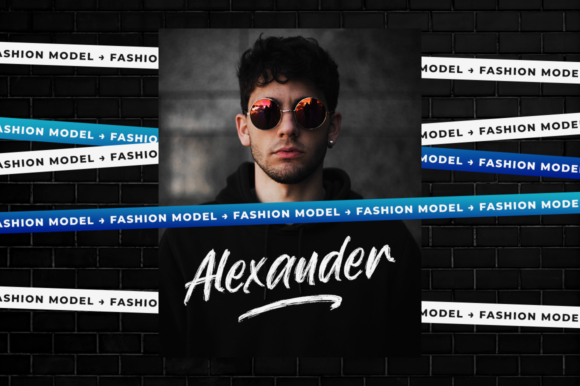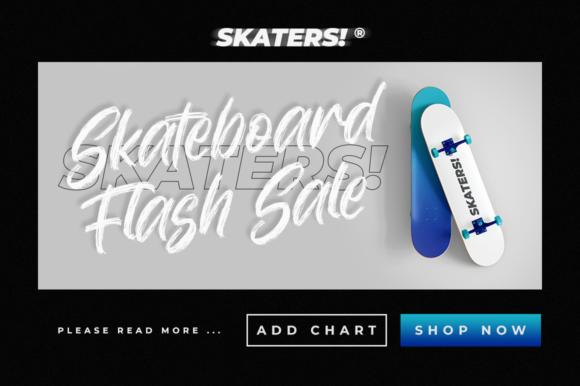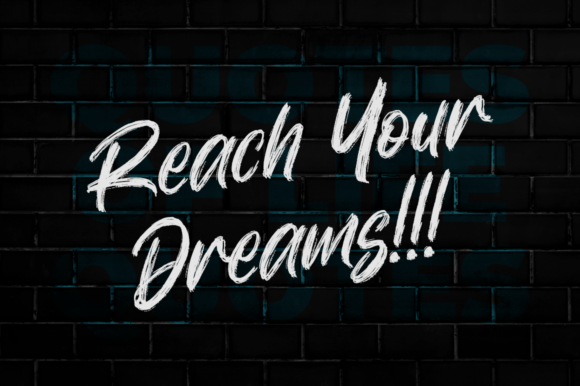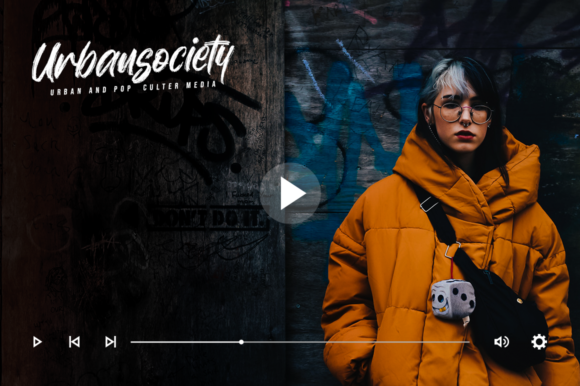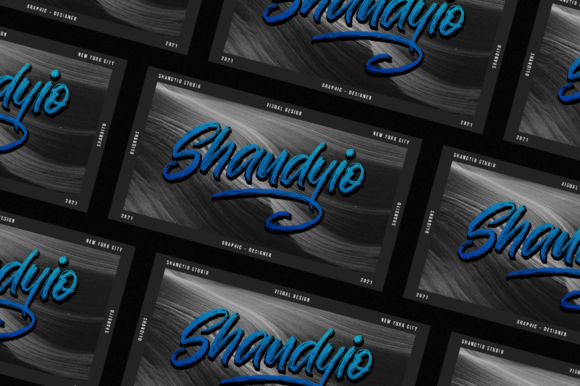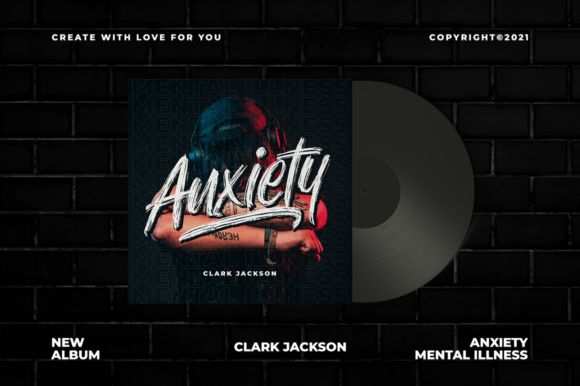
I still remember the frustration of working on a project, hours spent on designing and refining every detail, only to be stuck on one thing: finding the perfect font. It was for a client’s boutique brand, and I needed something that exuded confidence, style, and versatility. The font had to be chic, trendy, and convey a sense of high-end quality. I scoured through font libraries, tried out numerous options, but nothing seemed to fit the bill. That was until I stumbled upon Autosmash Font.
Introducing Autosmash Font
Autosmash is a stunning script font that checks all the boxes: confidence, versatility, and style. Its sleek design, complete with stylish alternates and ligatures, makes it an excellent choice for any project. Whether you’re a designer, crafter, or creative hobbyist, Autosmash Font is sure to elevate your work.
- ✨ Stylish alternates and ligatures that add a touch of sophistication
- 💫 Works beautifully for both digital and print projects
- 🎨 Excellent for branding, packaging, and advertising designs
While Autosmash Font is an excellent choice, there are a few things to keep in mind:
- 🤔 Limited use of uppercase letters, which might not be ideal for certain projects
- ⚠️ Some users might find the font a bit too condensed for their taste
The Designer Inspiration Behind Autosmash Font
The story behind Autosmash Font begins with a designer who sought to create a font that embodied confidence and style. Inspired by the world of high-end fashion and luxury brands, they crafted a font that would convey a sense of sophistication and versatility. Through careful attention to detail and a passion for typography, Autosmash Font was born.
Q: What type of projects is Autosmash Font best suited for?
A: Autosmash Font is an excellent choice for branding, packaging, advertising, and digital designs that require a touch of style and sophistication.
Q: Is Autosmash Font suitable for body text?
A: While Autosmash Font is highly legible, it’s primarily designed for headlines and titles. For body text, you may want to consider a more traditional serif or sans-serif font.